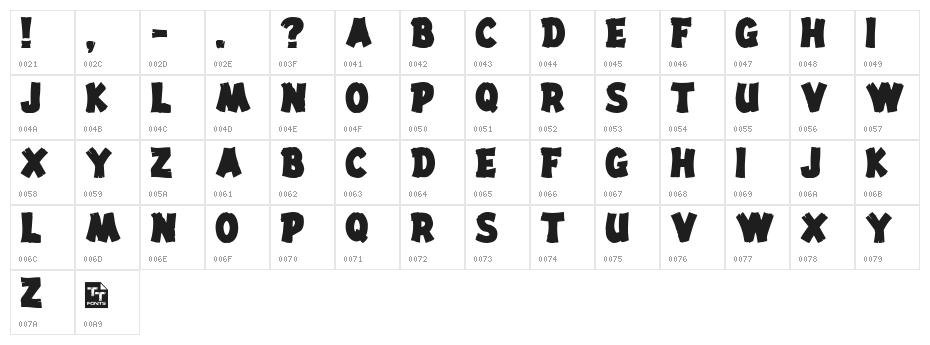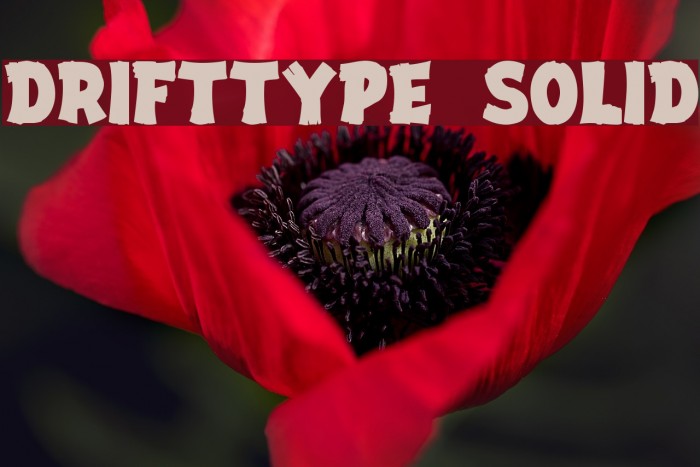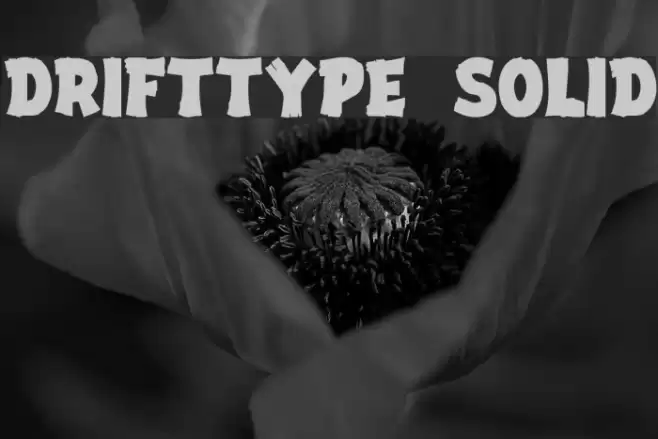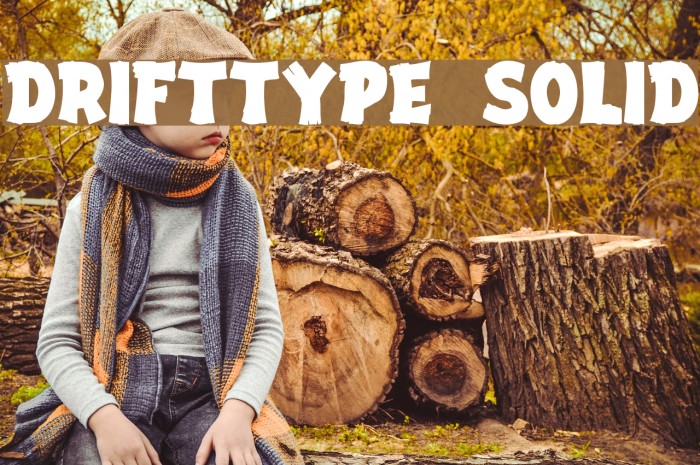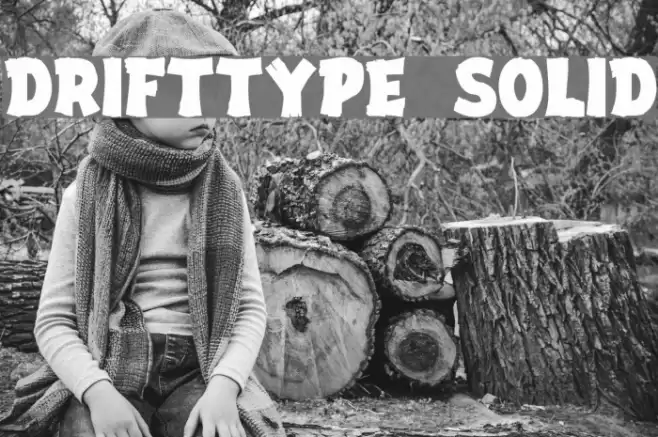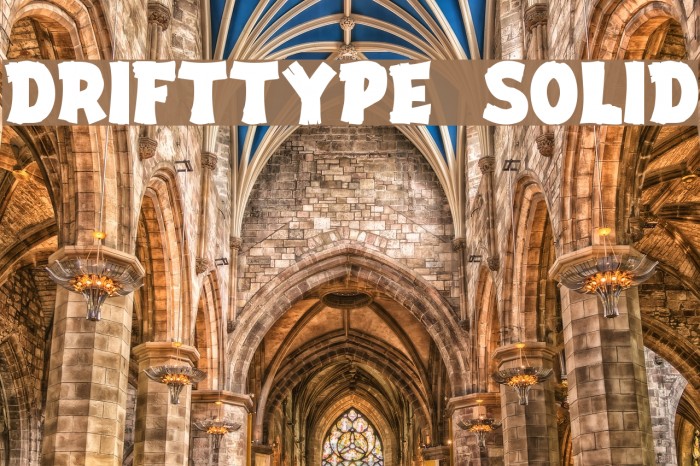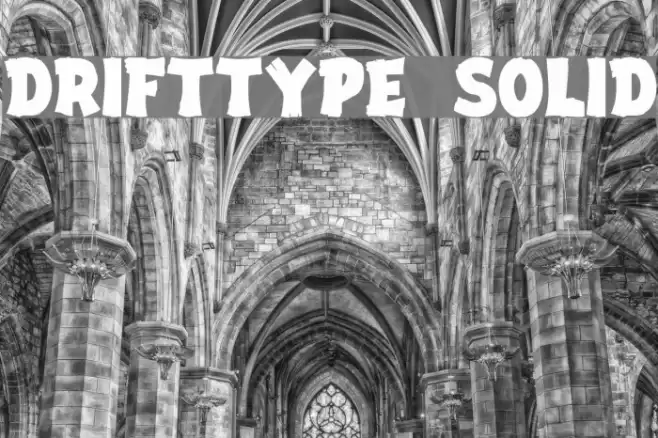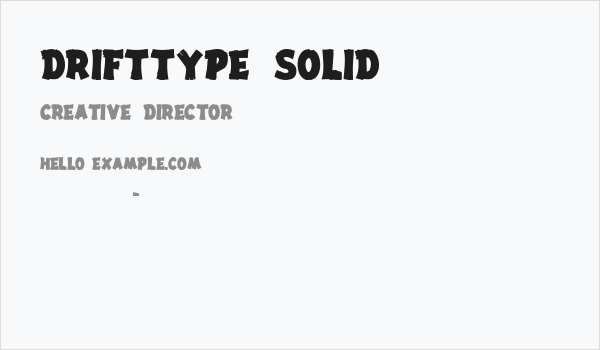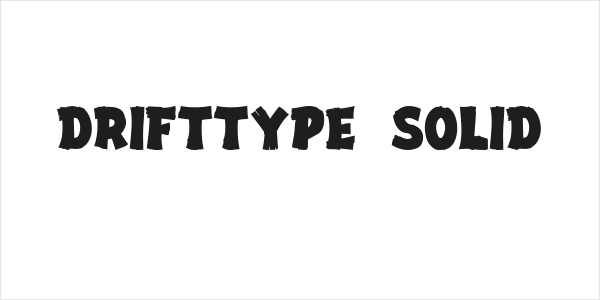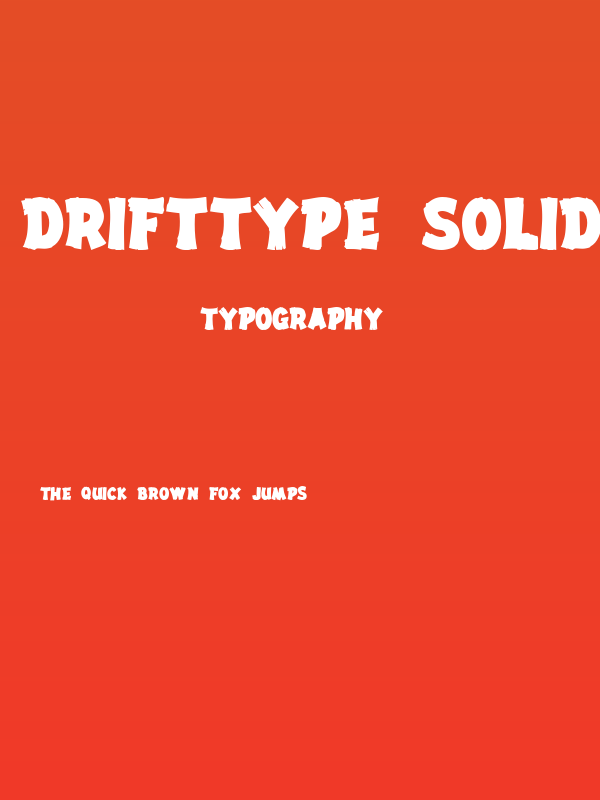
DriftType Solid Font
DriftType Solid Description
This bold and dynamic font features a rugged, hand-drawn style with thick, uneven strokes that give it a playful and energetic appearance. The characters are bold and slightly irregular, creating a sense of movement and spontaneity. The uppercase and lowercase letters maintain a consistent style, with exaggerated serifs and a chunky form that stands out. The numbers and special characters follow the same bold and expressive design, making the font suitable for attention-grabbing headlines or creative projects. Its unique style is perfect for designs that require a strong visual impact.
| Proposed Projects | Ideal for posters, logos, branding, and any project needing a bold, eye-catching typeface. |